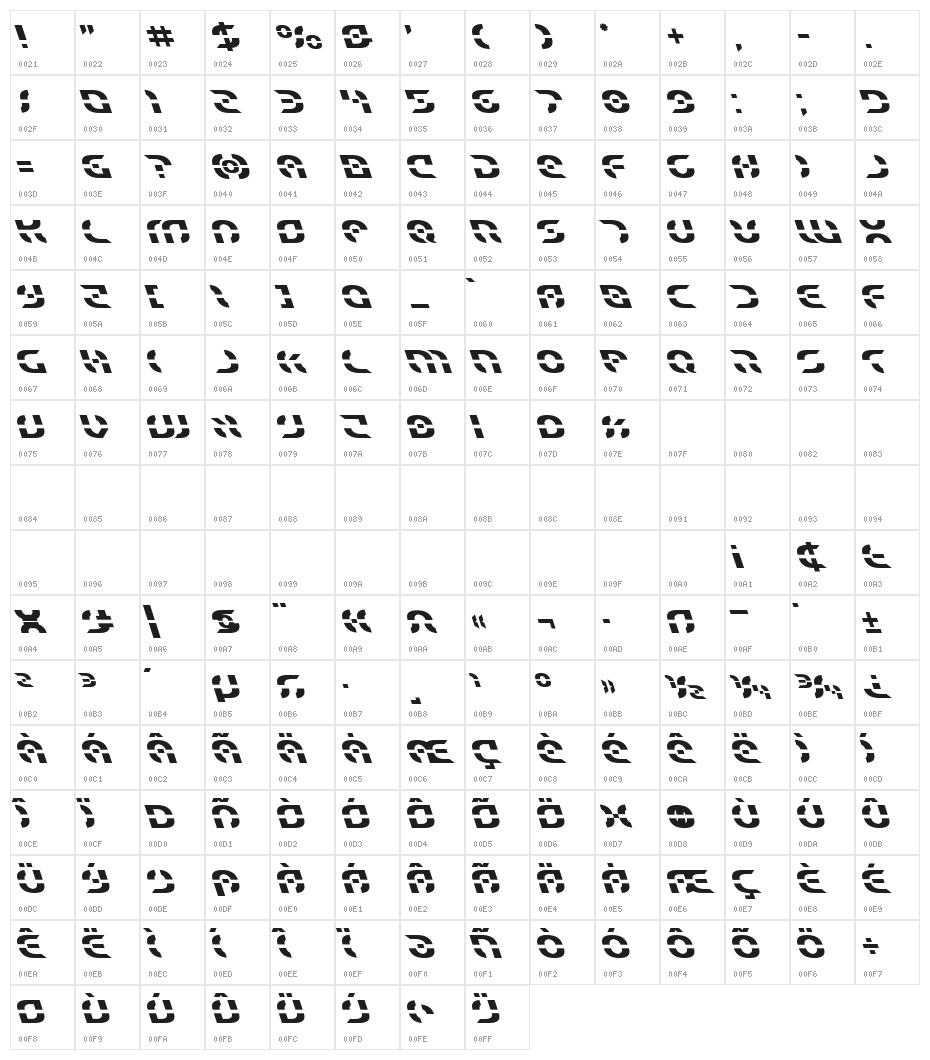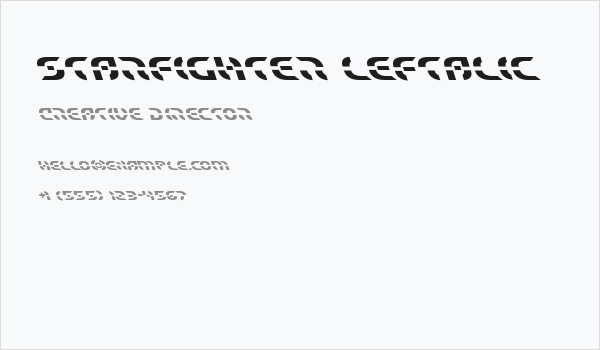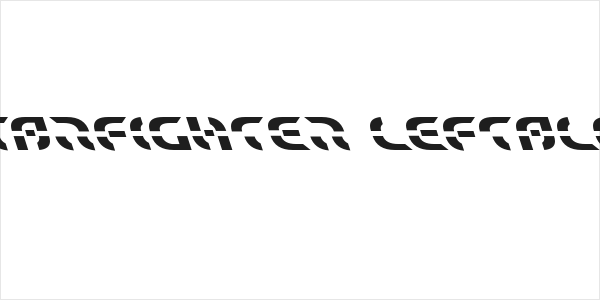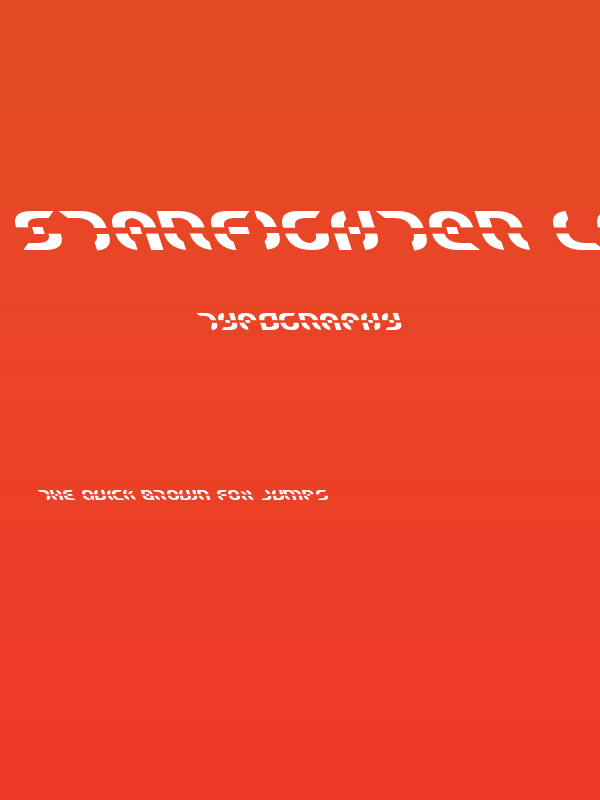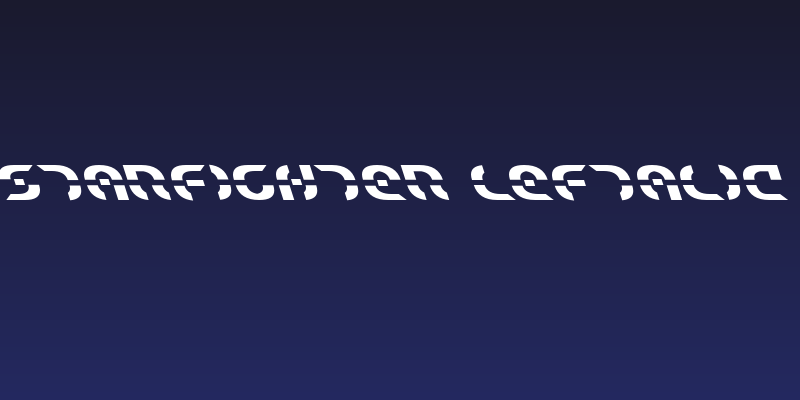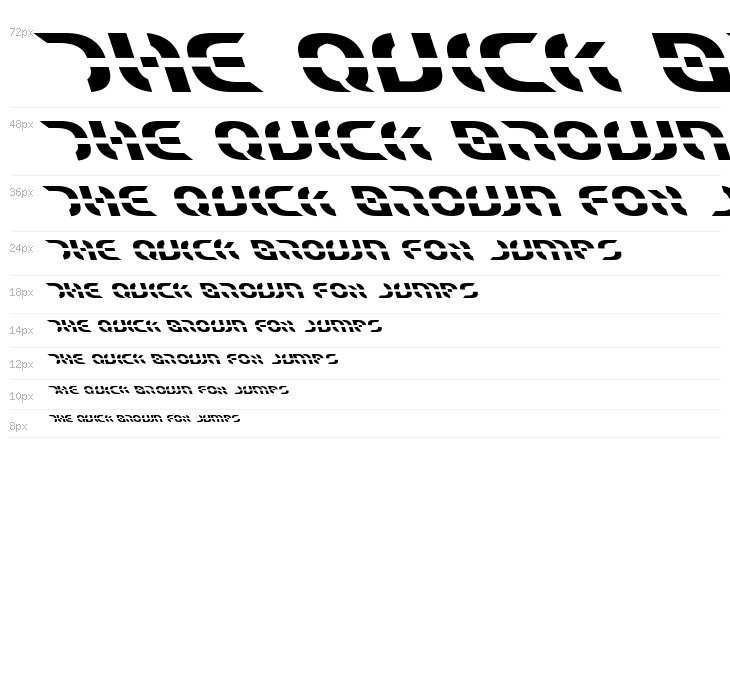
Starfighter Leftalic Font
Starfighter Leftalic Description
This font features a futuristic and angular design, characterized by its bold and geometric letterforms. The characters are constructed with sharp, clean lines and distinct cutouts, giving it a dynamic and modern appearance. The style is reminiscent of science fiction themes, with a strong emphasis on horizontal alignment and symmetry. The uppercase and lowercase letters maintain a consistent aesthetic, while the numerals and special characters complement the overall design with similar angular cuts and shapes. This font stands out with its unique and striking visual impact, making it ideal for projects that require a bold and modern touch.